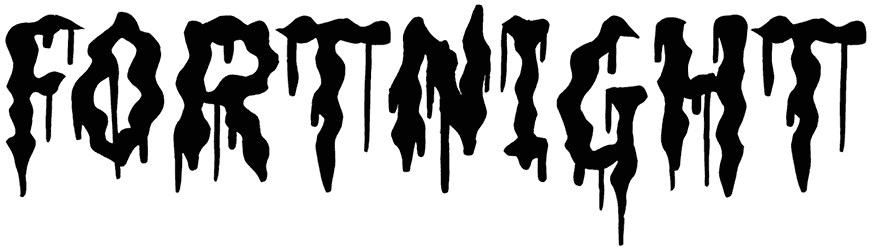
Fortnight Font
You will be proud of choosing the Fortnight if you are looking for a horror font. This melting font has a dark theme that seems scary, and you can use it for various purposes, for instance, posters, prints on T-shirts, and video games.
However, it does not support lowercase letters, numbers, and symbols. The Fortnight font’s letters have a bloody theme, creating a frightening feeling. So download it now to impact your audience.